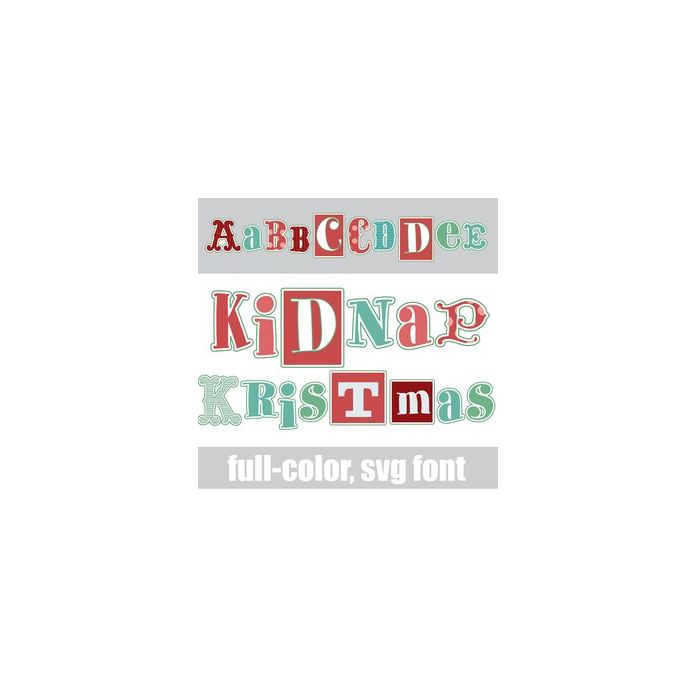
This full-color font features ransom note style lettering in a Christmas color palette. There is an alt case w/ additional colors you can access through your system or Silhouette's glyph map.